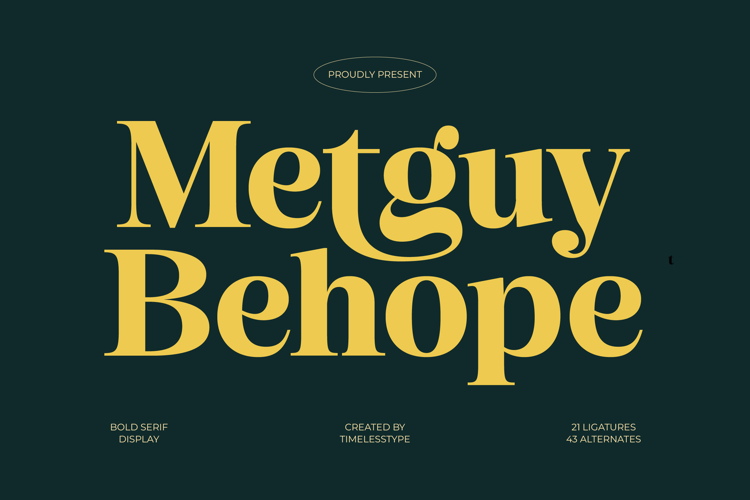
Metguy Behope - Bold Serif Display
Metguy Behope
Metguy Behope Italic
Metguy Behope - Bold Serif Display is the definitive choice for projects demanding unforgettable presence and inherent prestige. This custom typeface masterfully combines the classic weight of a bold serif with the elegant fluidity of modern display typography. Its powerful, high-contrast structure and commanding presence ensure that headlines and titles are not just read, but immediately capture attention. It exudes confidence and refinement, making a sophisticated statement in both print and digital environments.